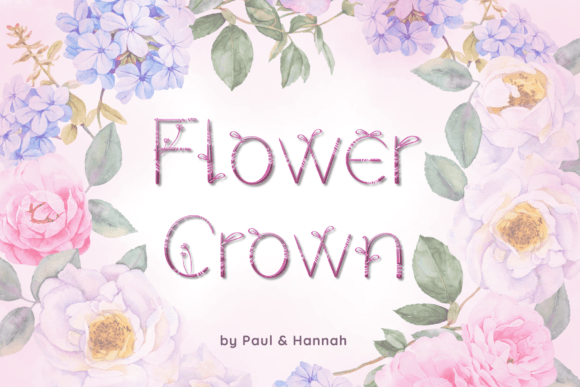
Introducing Flower Crown Font: Elevate Your Designs with Organic Elegance
Are you looking for a font that can add a touch of organic elegance to your designs? Look no further than Flower Crown Font, a beautiful decorative font featuring lovely ornaments. This stunning font is perfect for a wide range of design projects, from wedding invitations and branding materials to social media graphics and more.
What is Flower Crown Font?
Flower Crown Font is an organic and beautiful decorative font that is sure to elevate any creation. With its delicate floral ornaments and elegant design, this font is perfect for designers who want to add a touch of whimsy and romance to their work. Whether you’re designing a wedding invitation, a logo, or a social media graphic, Flower Crown Font is an incredible asset to have in your font library.
Key Features of Flower Crown Font
So, what makes Flower Crown Font so special? Here are just a few of its key features:
- Organic Design: Flower Crown Font features an organic design that is reminiscent of nature. With its delicate floral ornaments and elegant lines, this font is perfect for designers who want to add a touch of whimsy to their work.
- Beautiful Ornaments: This font features a range of beautiful ornaments, including flowers, leaves, and other natural elements. These ornaments can be used to add a touch of elegance to any design.
- Versatile: Flower Crown Font is incredibly versatile, making it perfect for a wide range of design projects. Whether you’re designing a wedding invitation, a logo, or a social media graphic, this font is sure to impress.
How to Use Flower Crown Font
Flower Crown Font is incredibly easy to use, even for designers who are new to using decorative fonts. Here are a few tips for getting the most out of this beautiful font:
- Pair it with a Simple Font: For maximum impact, pair Flower Crown Font with a simple font. This will help to create a beautiful contrast between the elegant design of the flower crown font and the simplicity of the other font.
- Use it for Headings: Flower Crown Font is perfect for headings, as it adds a touch of elegance and sophistication to any design. Try using it for headings, and then pairing it with a simple font for body text.
- Experiment with Ornaments: One of the best things about Flower Crown Font is its range of beautiful ornaments. Experiment with these ornaments to add a touch of whimsy to your designs.
Benefits of Using Flower Crown Font
So, why should you choose Flower Crown Font for your next design project? Here are just a few of the benefits of using this beautiful font:
- Elegant Design: Flower Crown Font features an elegant design that is sure to impress. With its delicate floral ornaments and beautiful lines, this font is perfect for designers who want to add a touch of sophistication to their work.
- Increased Creativity: With its range of beautiful ornaments and elegant design, Flower Crown Font is sure to inspire your creativity. Whether you’re designing a wedding invitation or a social media graphic, this font is sure to help you come up with fresh and innovative ideas.
- Time-Saving: Flower Crown Font is incredibly easy to use, which means that you can save time on your design projects. With its simple and intuitive design, you can quickly and easily create beautiful designs that are sure to impress.
Who Can Use Flower Crown Font?
Flower Crown Font is perfect for a wide range of designers and design projects. Here are just a few examples of who can use this beautiful font:
- Wedding Designers: Flower Crown Font is perfect for wedding designers who want to create beautiful and elegant wedding invitations, decorations, and other materials.
- Graphic Designers: Graphic designers can use Flower Crown Font to add a touch of elegance and sophistication to their designs. Whether you’re designing a logo, a brochure, or a social media graphic, this font is sure to impress.
- Stationery Designers: Stationery designers can use Flower Crown Font to create beautiful and elegant stationery, including letterheads, business cards, and more.
In conclusion, Flower Crown Font is a beautiful and elegant decorative font that is sure to elevate any design project. With its organic design, beautiful ornaments, and versatile nature, this font is perfect for a wide range of designers and design projects. Whether you’re designing a wedding invitation, a logo, or a social media graphic, Flower Crown Font is an incredible asset to have in your font library.